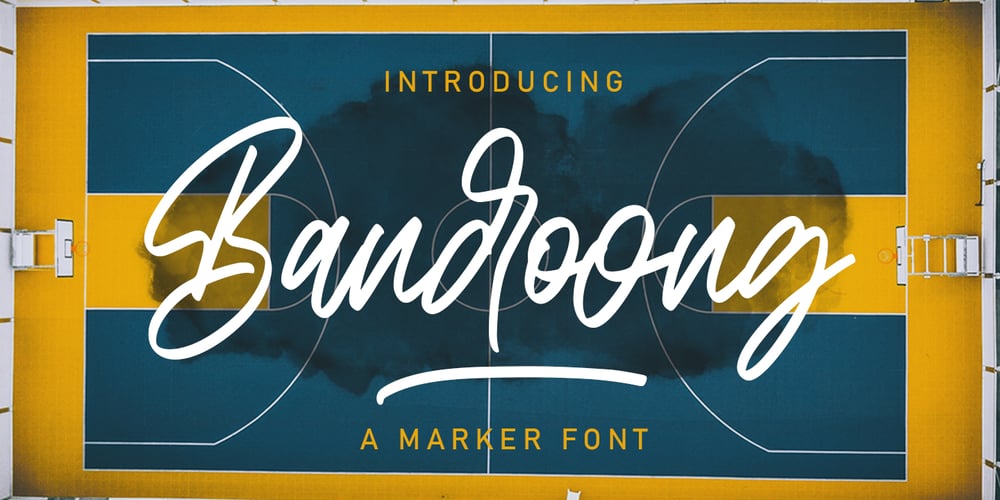
Bandoong Font Family was designed by Asep Rendi and published by Arendxstudio. Bandoong contains 1 styles and family package options. Introducing a new font called Bandoong inspired by urban script fonts with sharp and beautiful letters that create fonts that are modern, tendy and elegant. Bandoong comes with OpenType features such as stylistic alternates, stylistic sets & ligatures and is perfect for logotypes, posters, badges, book covers, tshirt design, packaging and more.Features : • Character Set A-Z • Numerals & Punctuations (OpenType Standard) • Accents (Multilingual characters) • Ligature • Alternate • SwashThere it is! I really hope you enjoy it – comments & likes are always welcome and accepted. More importantly, don’t hesitate to send a message if you have a problem or question.